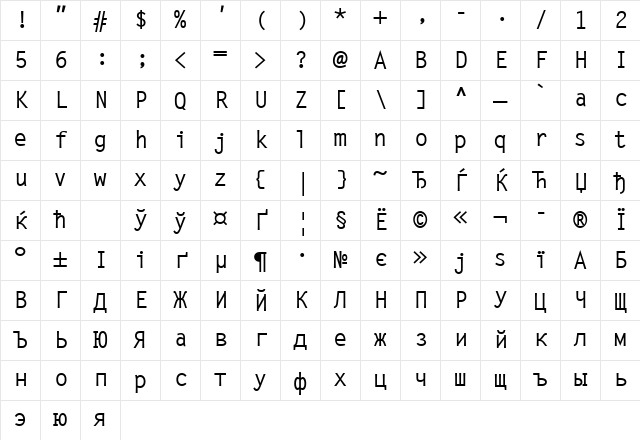
LetterGotLCYMed Regular
Design Context for LetterGotLCYMed
LetterGotLCYMed is a composed and adaptable typeface that performs quietly and consistently across a wide range of design contexts.